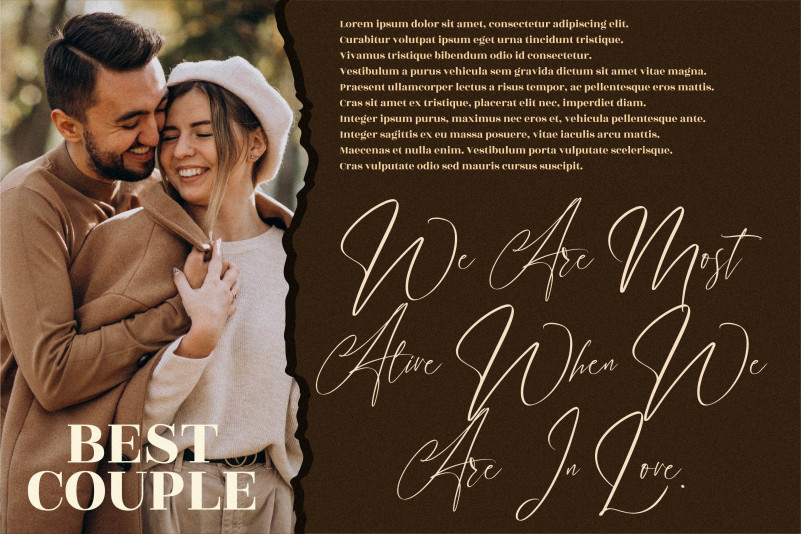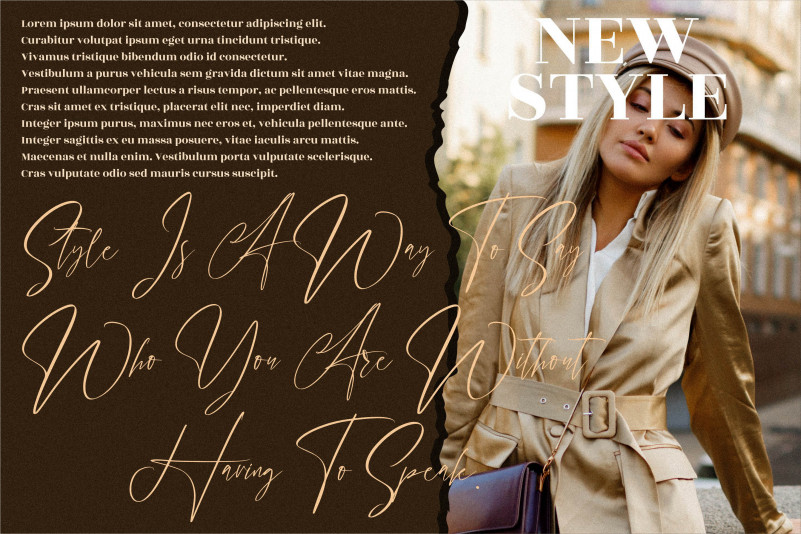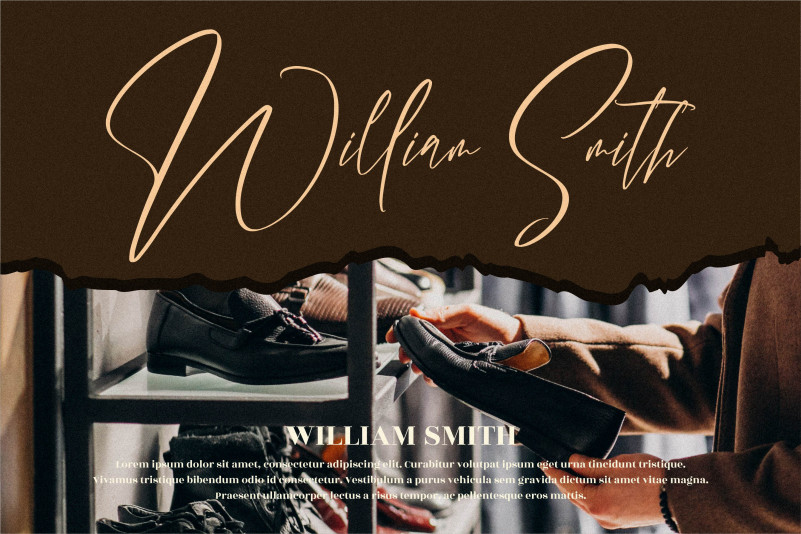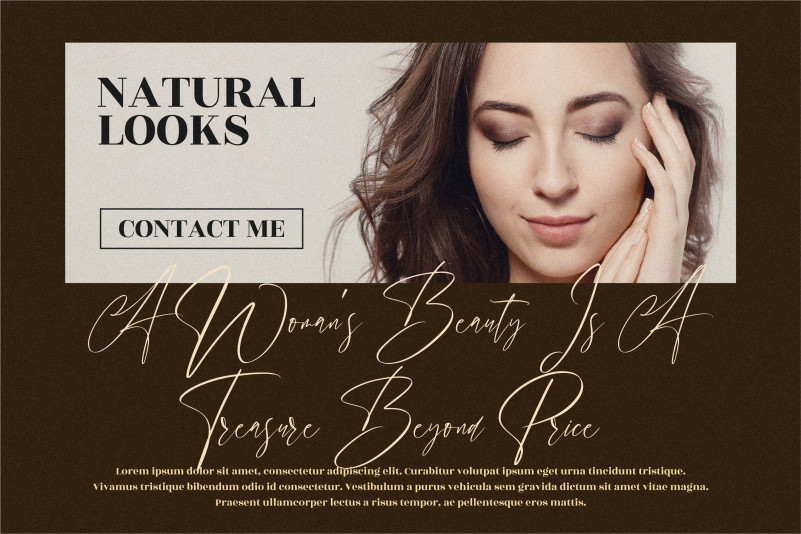
Handover Signature Font
Handover Signature Script Font
This is a beautiful light handwritten font with a unique feel and a stunning impact. It will add a luxury spark to any design project that you wish to create!